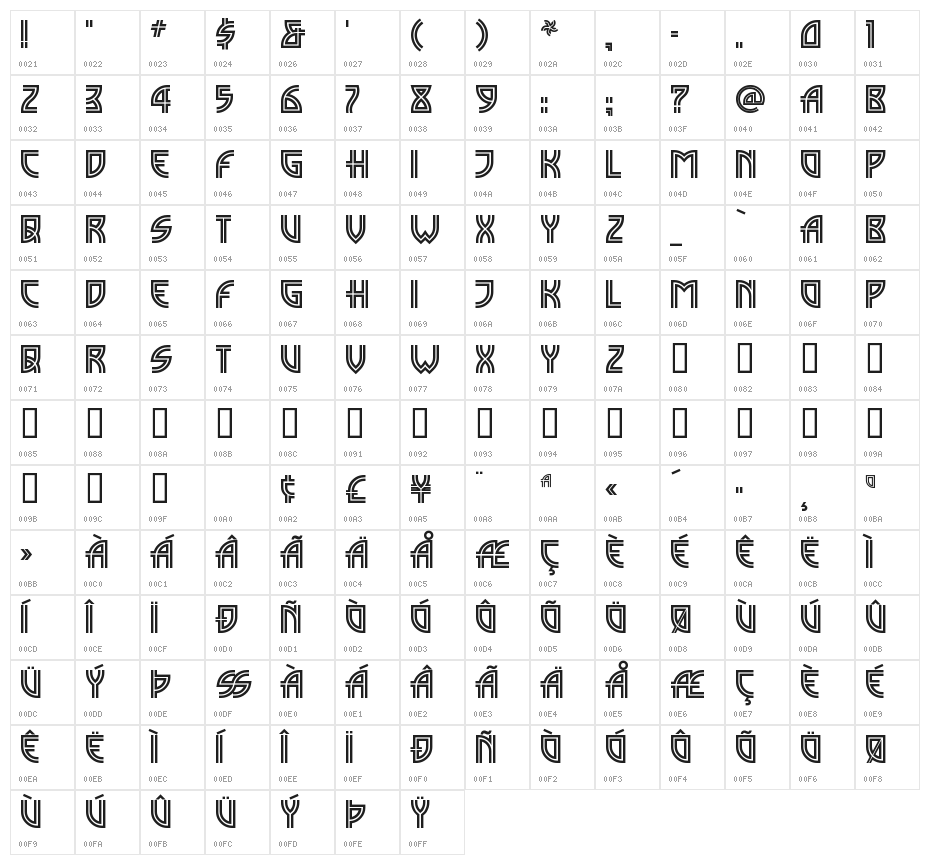
MadisonSquare Incised Font
MadisonSquare Incised Description
This font features a bold, geometric design with a strong emphasis on straight lines and sharp angles. The characters are constructed with a double-line style, creating a sense of depth and dimension. The uppercase letters are particularly striking, with a futuristic and architectural feel. The numerals and special characters maintain this aesthetic, ensuring consistency across all glyphs. The overall appearance is modern and eye-catching, making it suitable for projects that require a bold statement.
Proposed ProjectsIdeal for branding, posters, headlines, and any design work that requires a modern and impactful typeface.